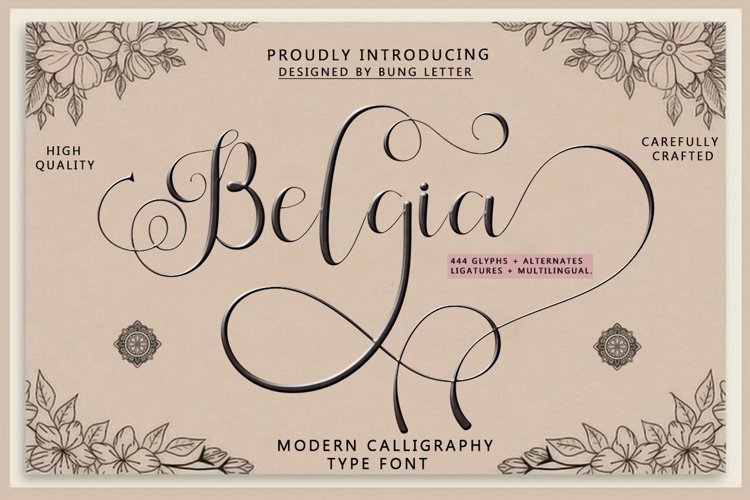
Belgia is actually a unique font, I like the relaxed spontaneity of my hands. designing formal fonts but having classic elements, which are suitable very suitable for media weddings, book covers, greeting cards, logos, branding, business cards and certificates, even for any design work that requires a classic, formal, or luxurious look.
Belgia displays 444+ total glyphs with with 248 alternative characters. including alternative OpenType Stylistic, ligatures and international language support. and will increase your creativity! You can use this font very easily.
There are many features in it:
-Uppercase
-Lowercase
-Punctuation
-Angka
-Ligatures
-Alternative
-Multilingual